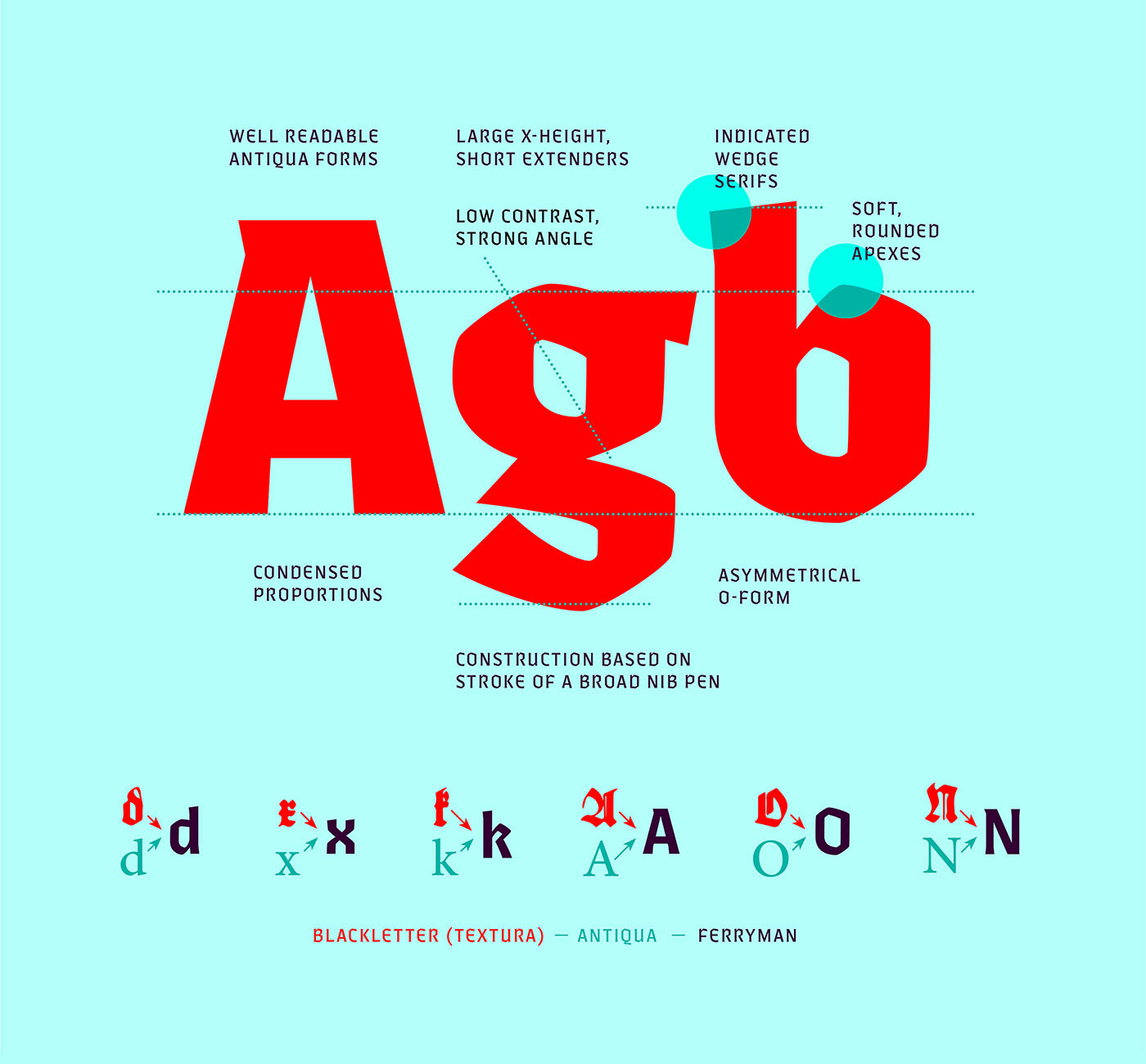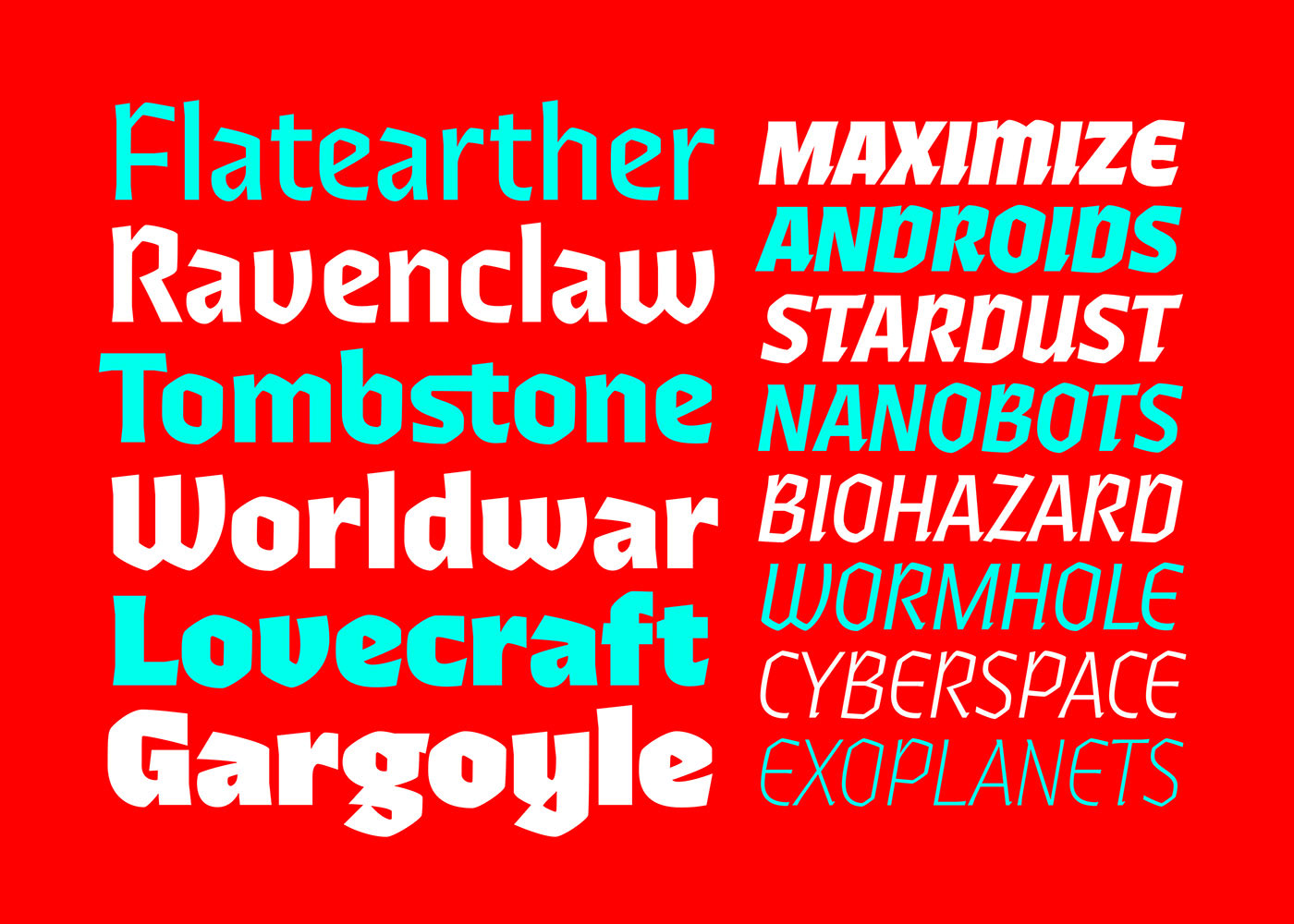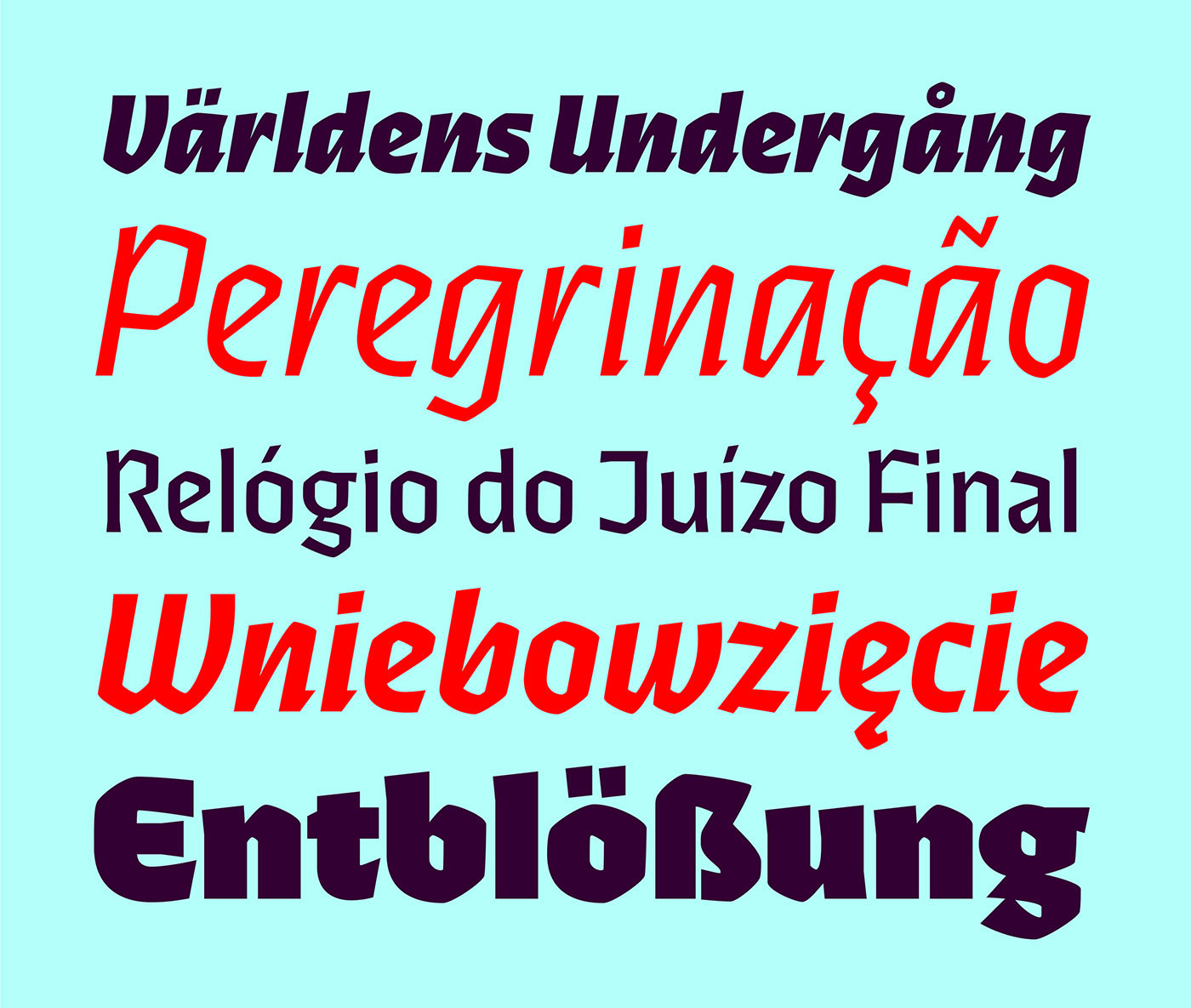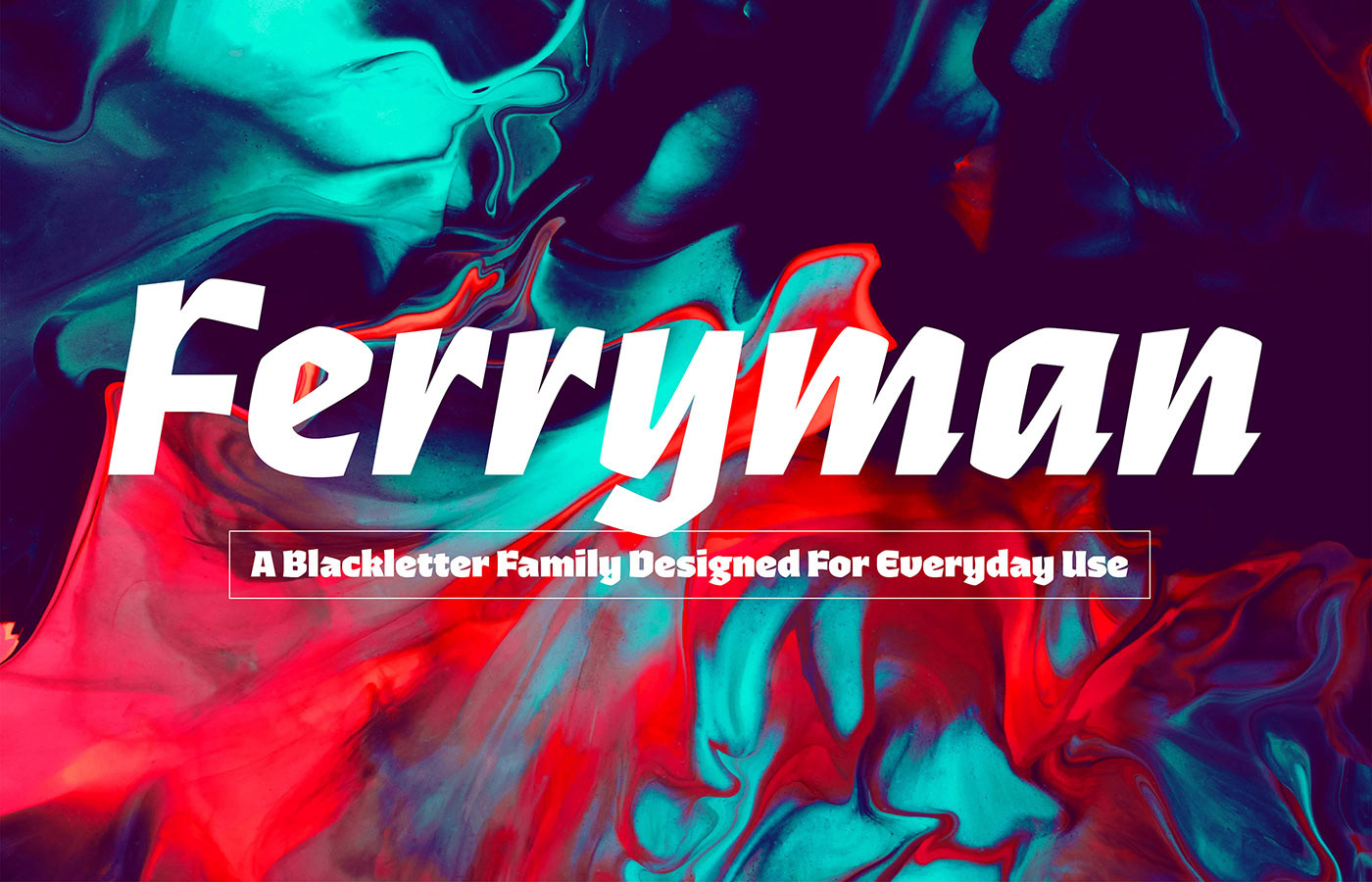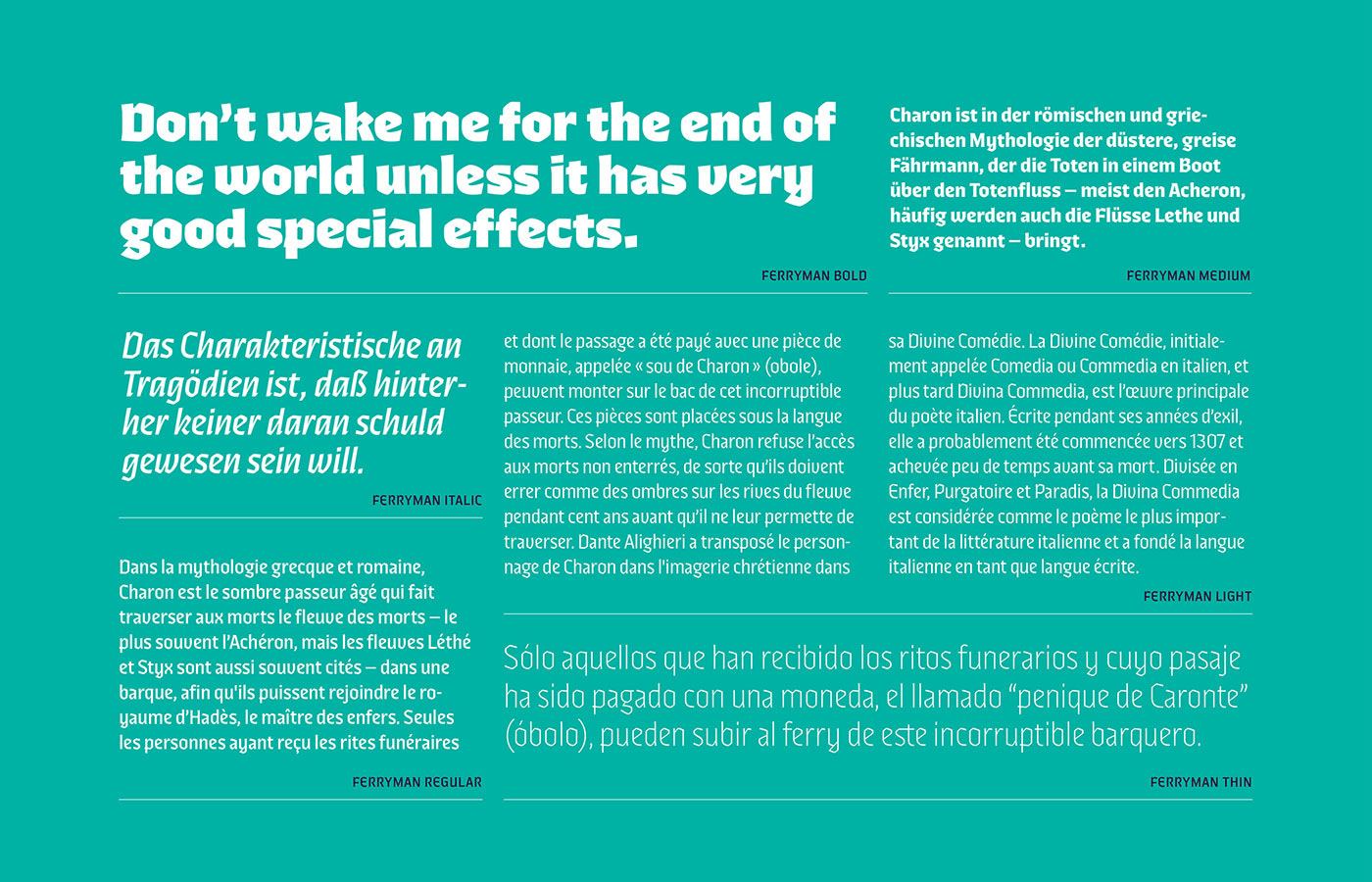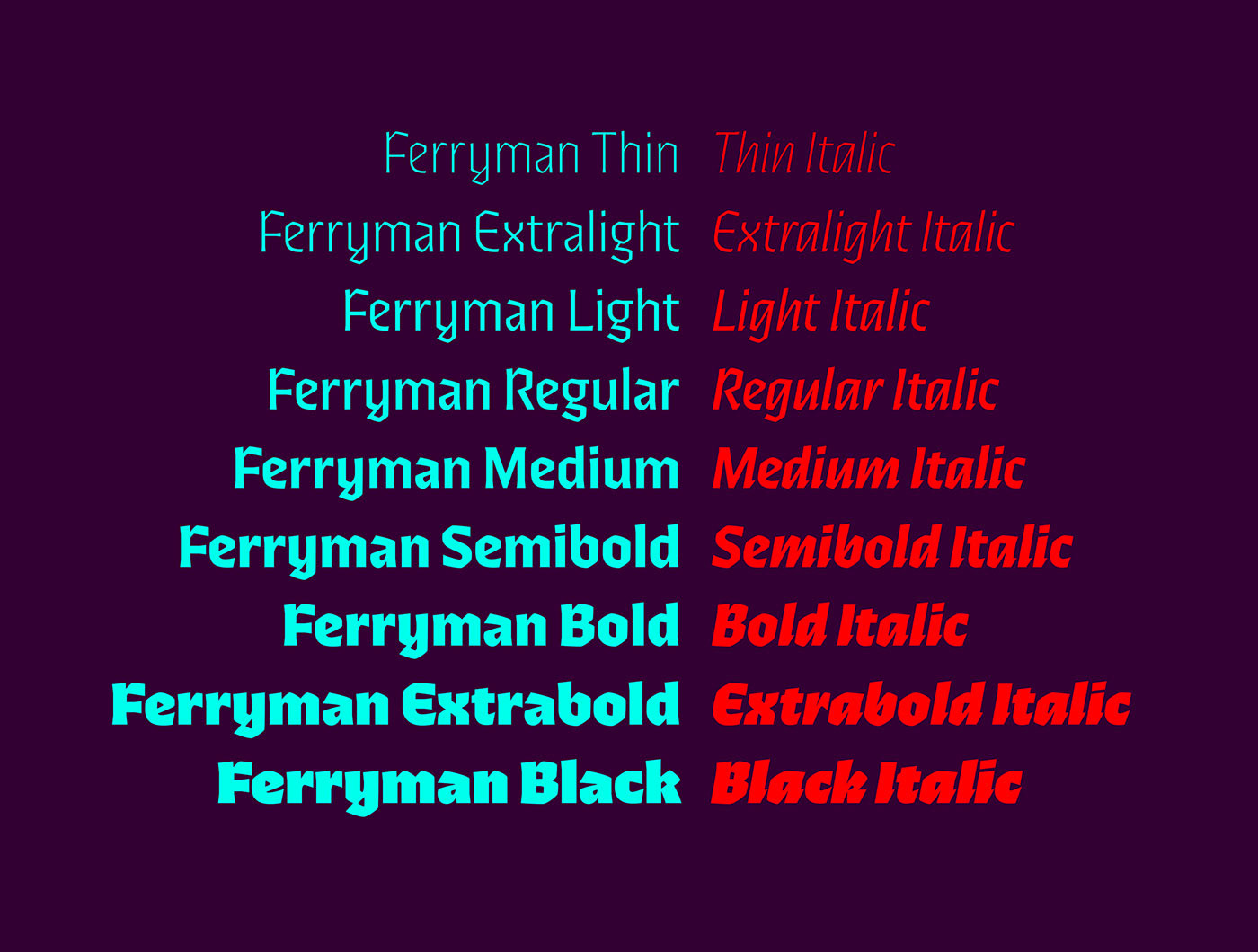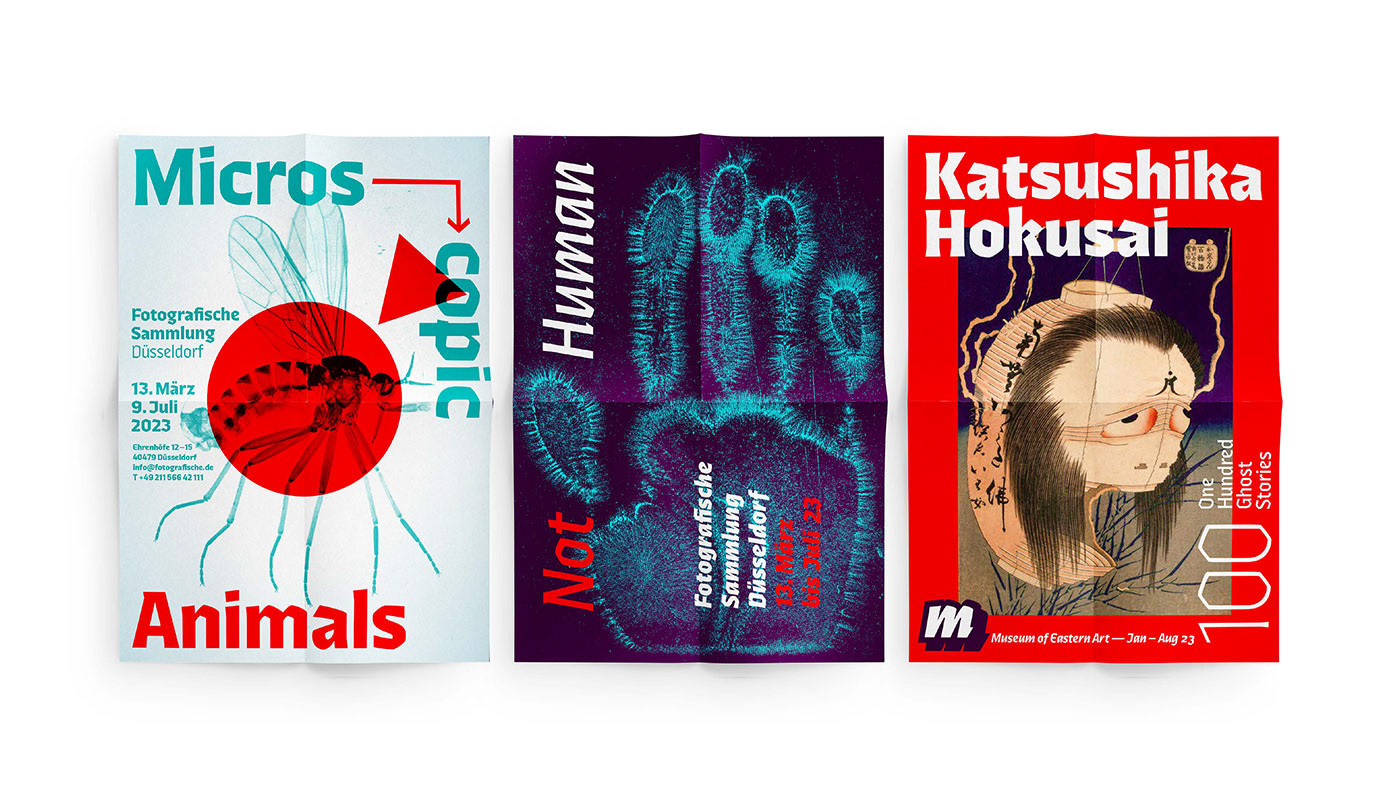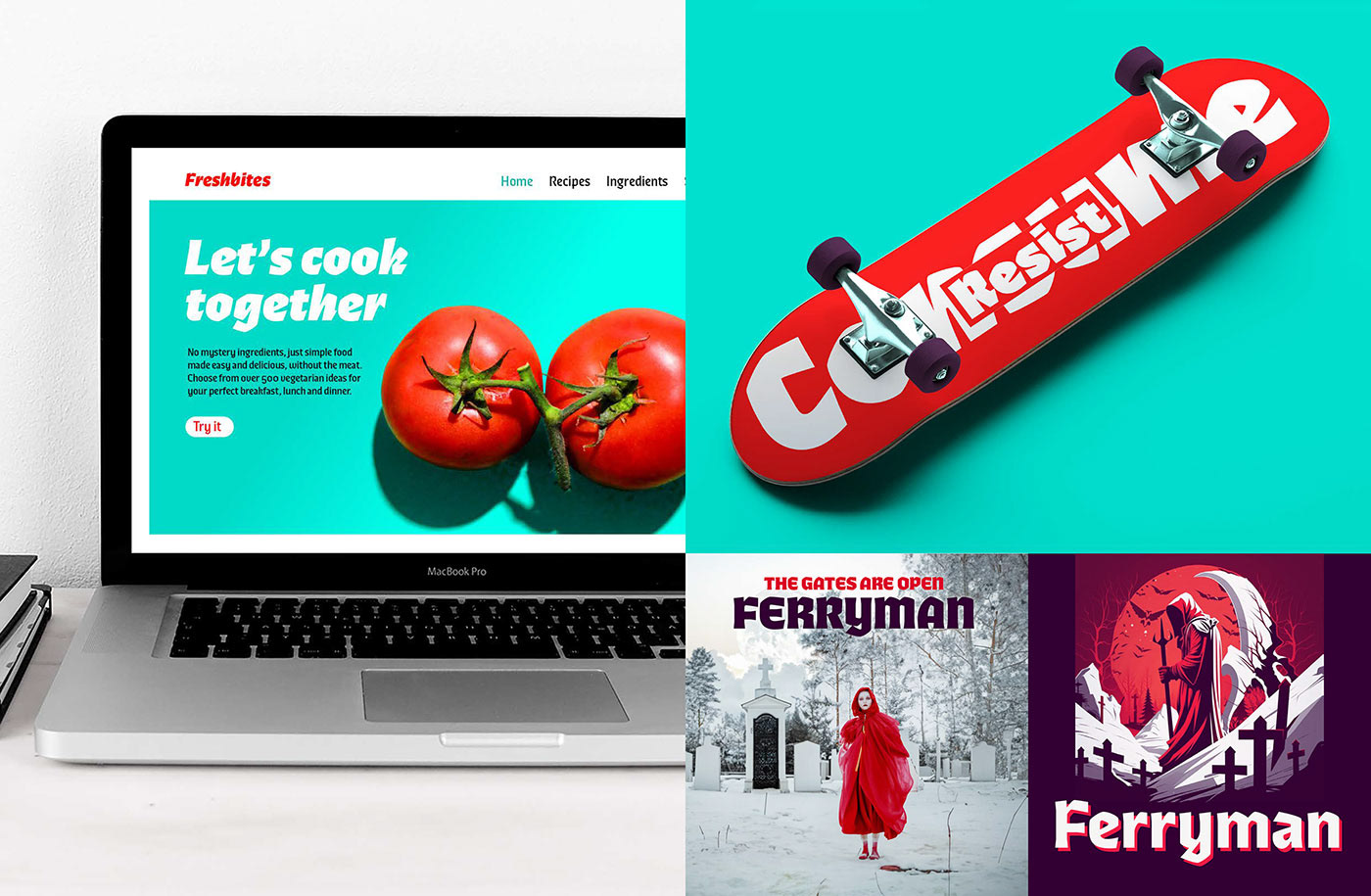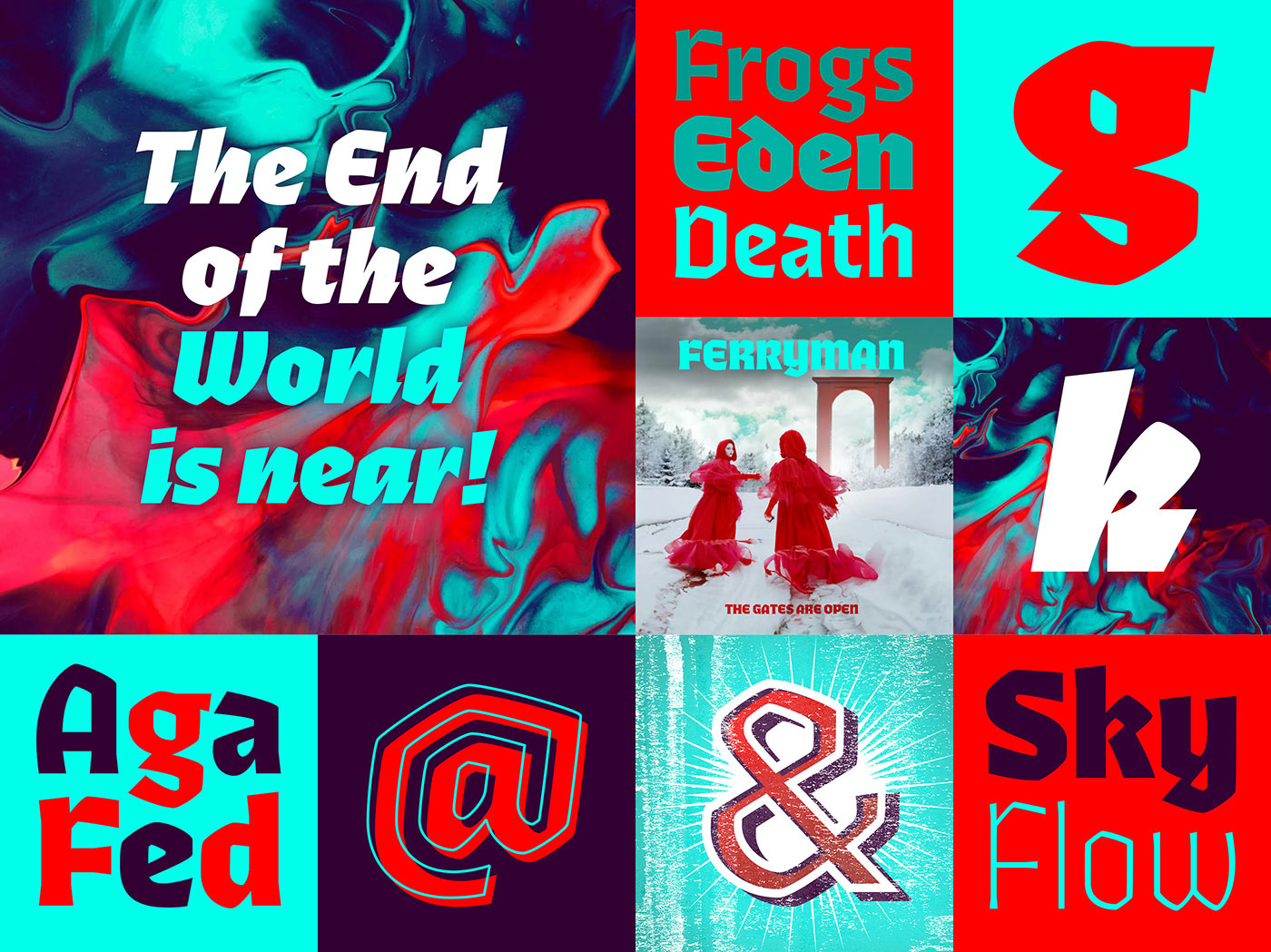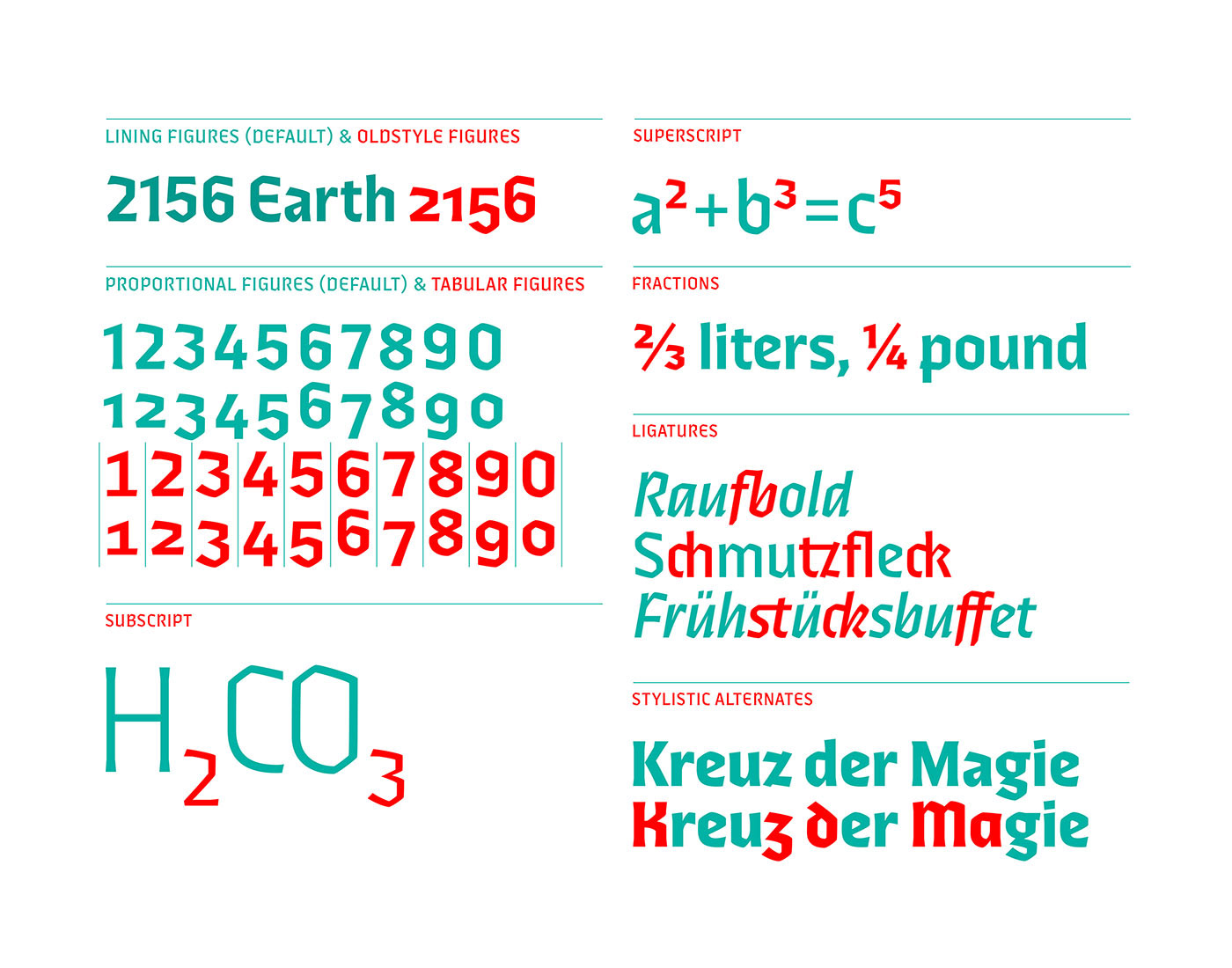
Ferryman is a Blackletter typeface for the contemporary reader. Unfamiliar Blackletter characters have been replaced with adapted common Latin characters (Antiqua) or with letters from other historical scripts that are more legible to a modern audience.
Ferryman is the antidote to the overused geometric and neogrotesk styles. An expressive display typeface with a strong character, it is perfectly suited for counterculture projects and progressive concepts e.g. in visual art, indie music, and alternative lifestyles.
With nine weights and corresponding italics Ferryman offers a wide range of creative possibilities. Each style offers 590 glyphs supporting all Western-, Eastern- and Central-European languages and comes with four sets of numbers and various currency symbols. For maximum usability Ferryman offers alternatives for many glyphs allowing to choose between best readability and historical richness of expression.